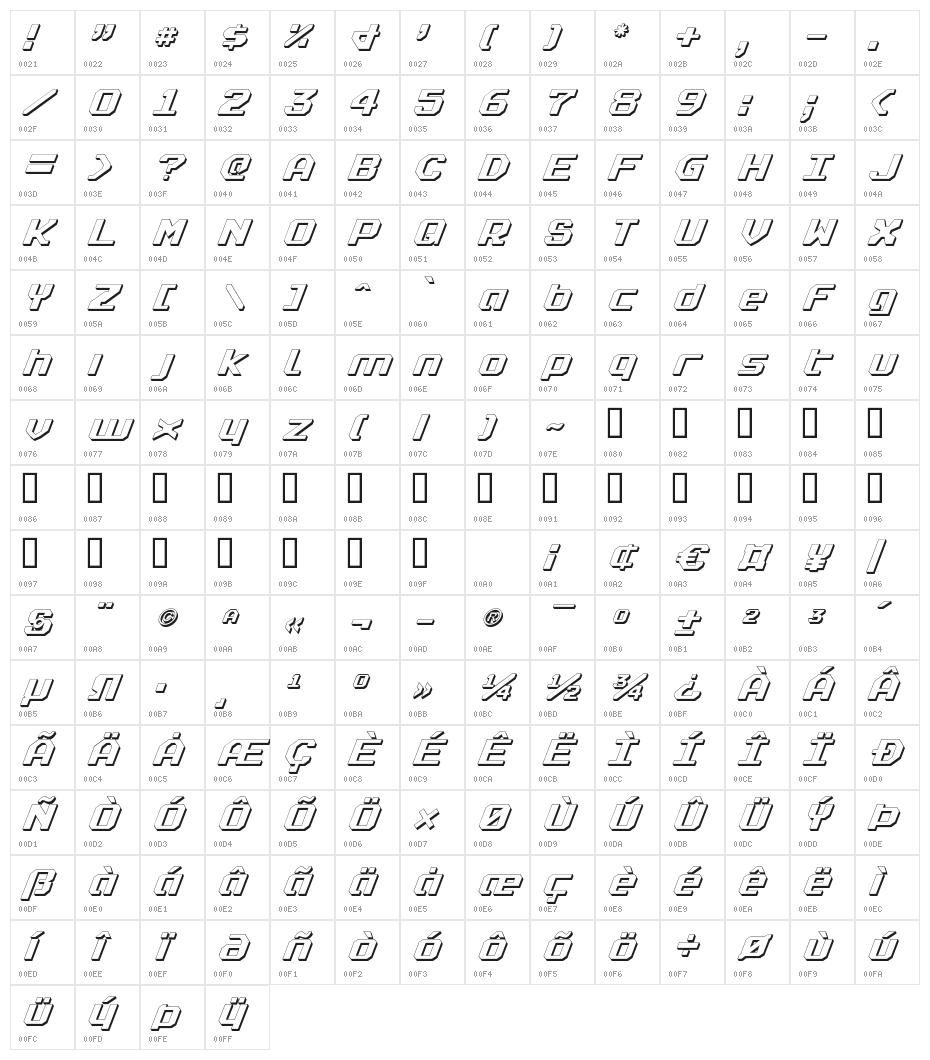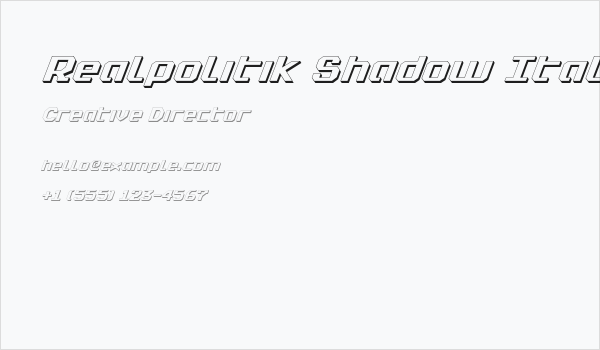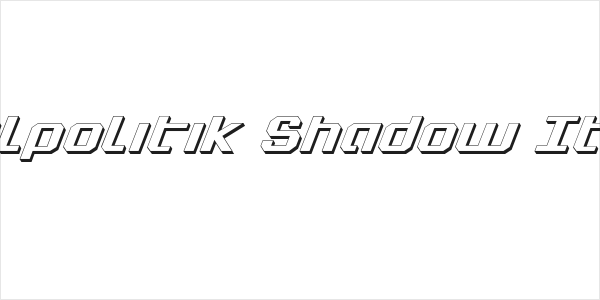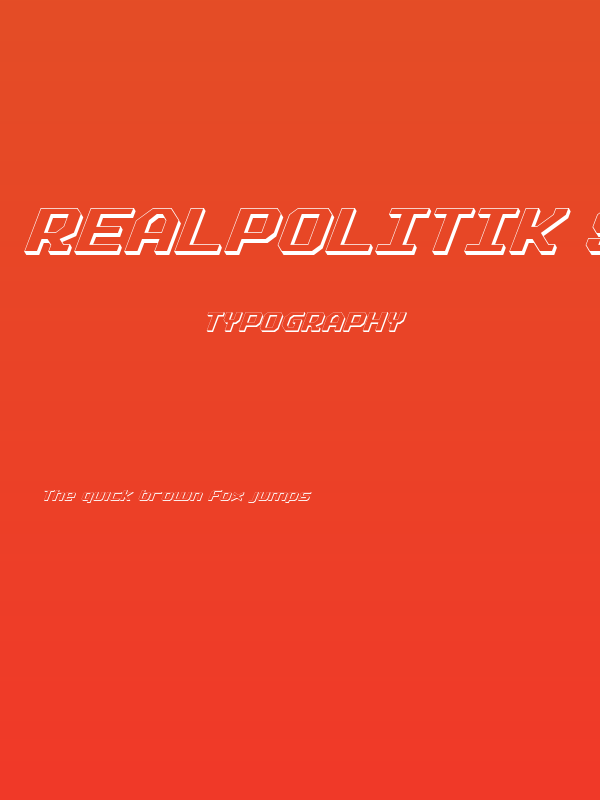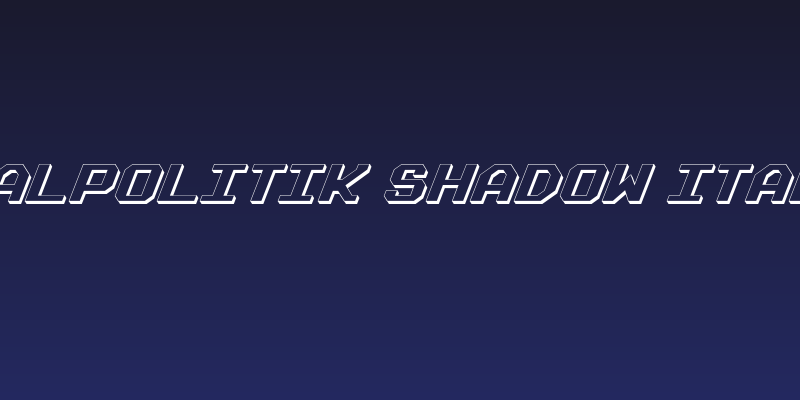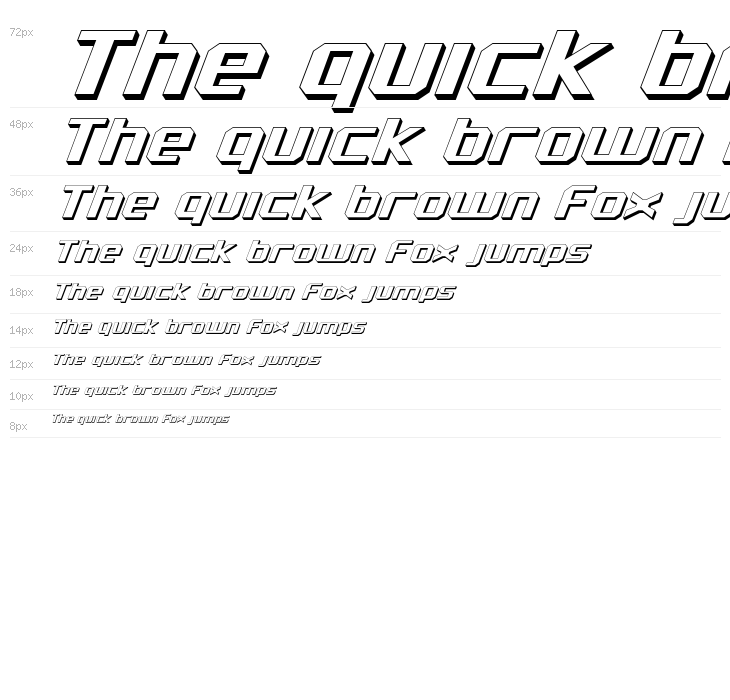
Realpolitik Shadow Italic Font
Realpolitik Shadow Italic Description
This font features a bold, italicized style with a distinct shadow effect that gives it a three-dimensional appearance. The characters are angular and geometric, with sharp edges and a modern aesthetic. The uppercase and lowercase letters maintain a consistent style, with a slight slant that enhances the italic effect. The numbers and special characters are designed to match the overall theme, providing a cohesive look across all elements. The shadow adds depth and makes the text stand out, making it suitable for attention-grabbing designs.
| Proposed Projects | Ideal for headlines, posters, logos, and any design requiring a modern, eye-catching font. |